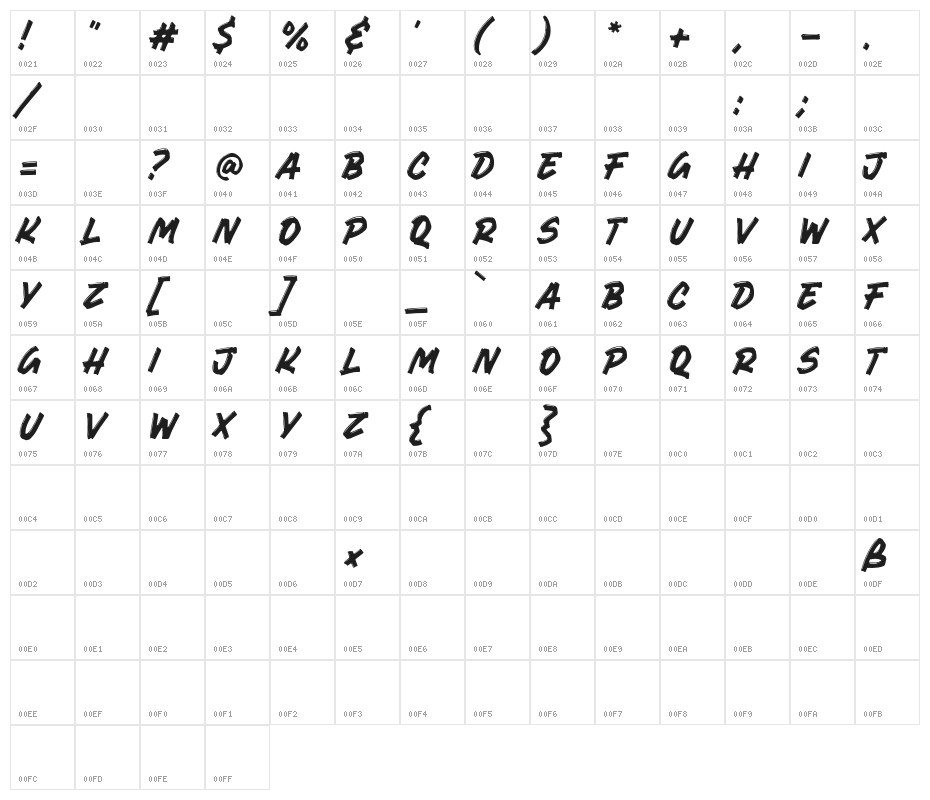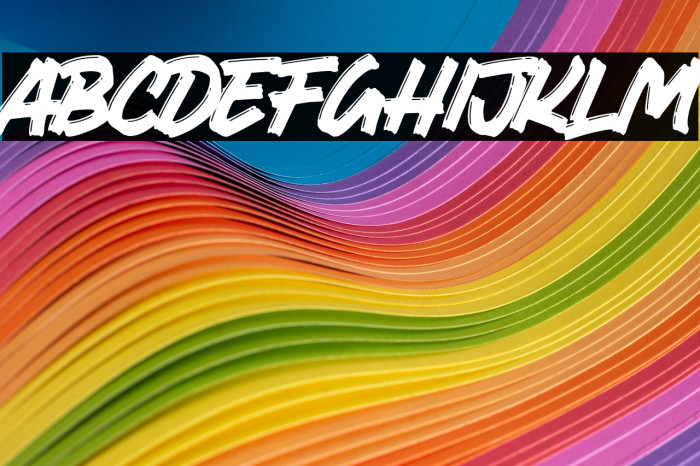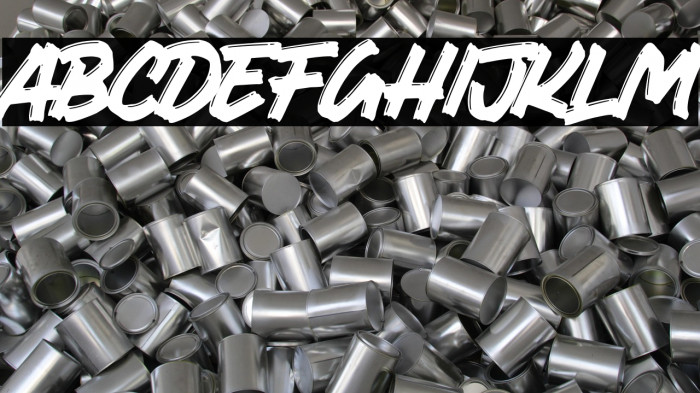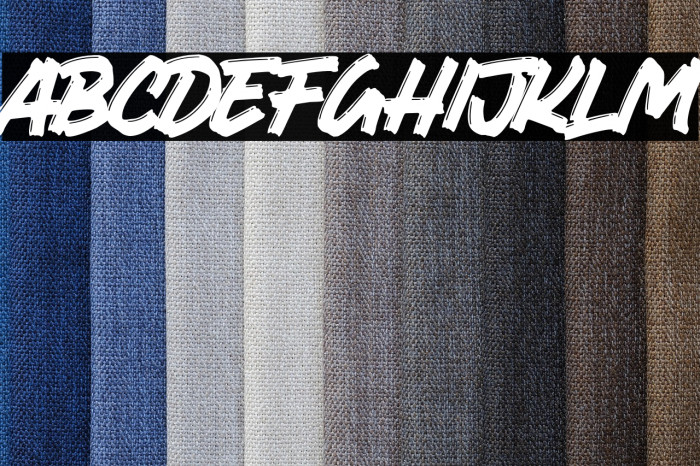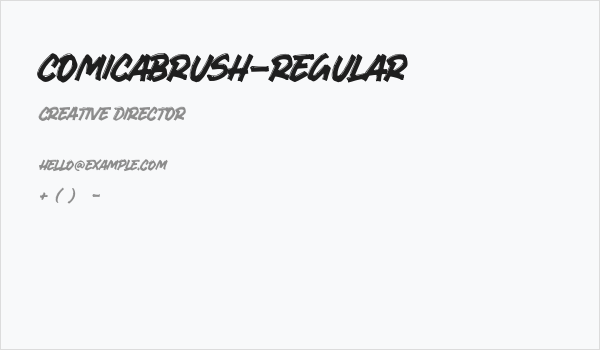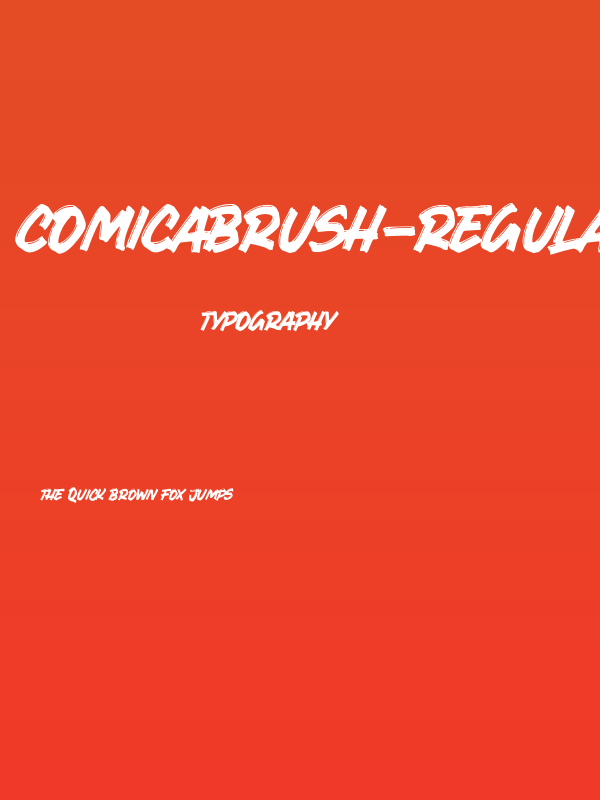
ComicaBrush-Regular Font
ComicaBrush-Regular Description
This font features a bold, energetic style with a hand-drawn appearance, reminiscent of comic book lettering. The strokes are thick and dynamic, with a slightly irregular form that adds to its playful and informal character. The uppercase and lowercase letters maintain a consistent style, with exaggerated curves and angles that enhance its lively feel. The numbers and special characters follow the same aesthetic, making it versatile for various creative applications. Its bold presence makes it ideal for attention-grabbing designs.
Overall StylePlayful, Energetic, Informal
Proposed ProjectsPerfect for comic books, graphic novels, posters, and playful branding projects.